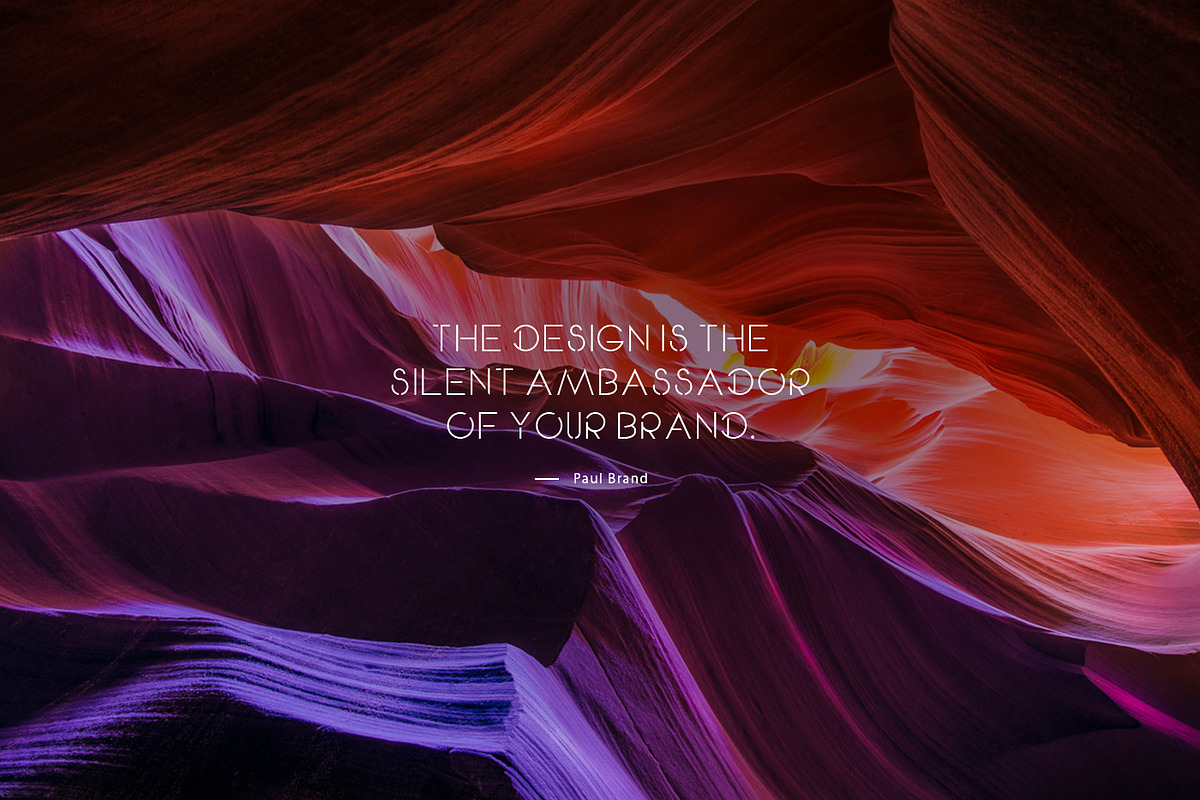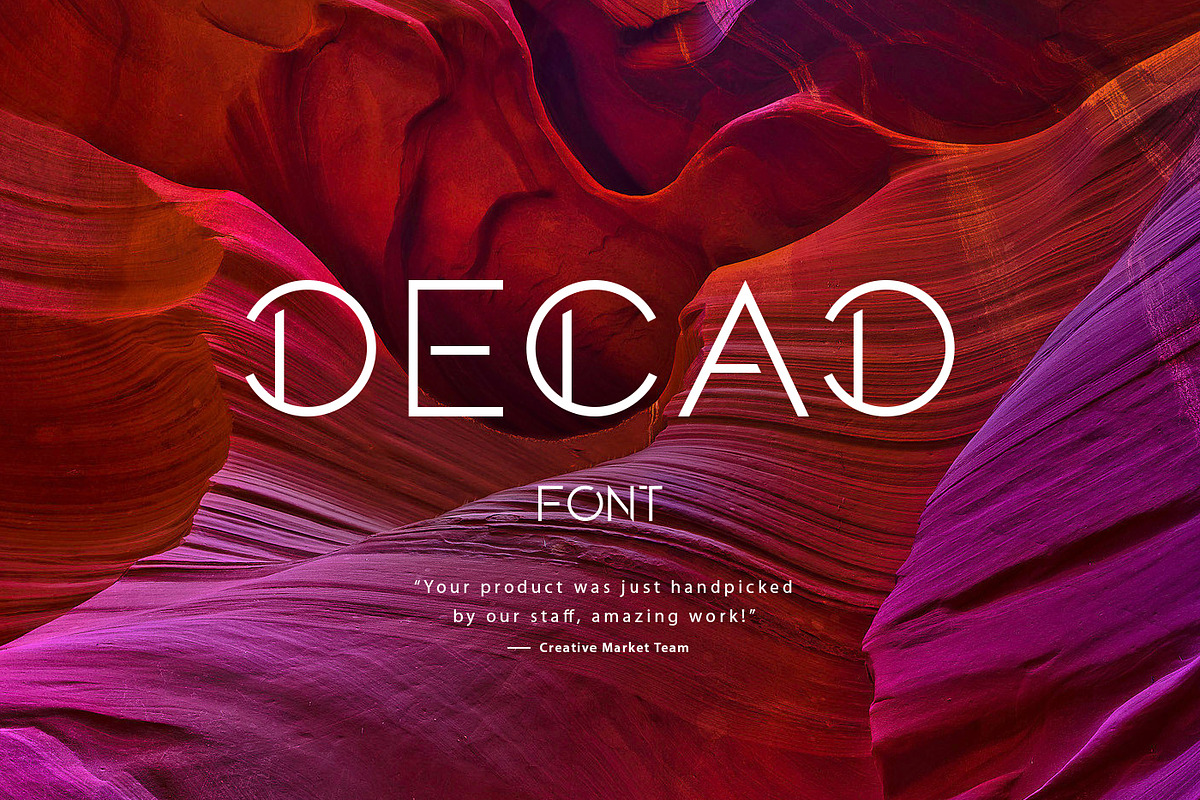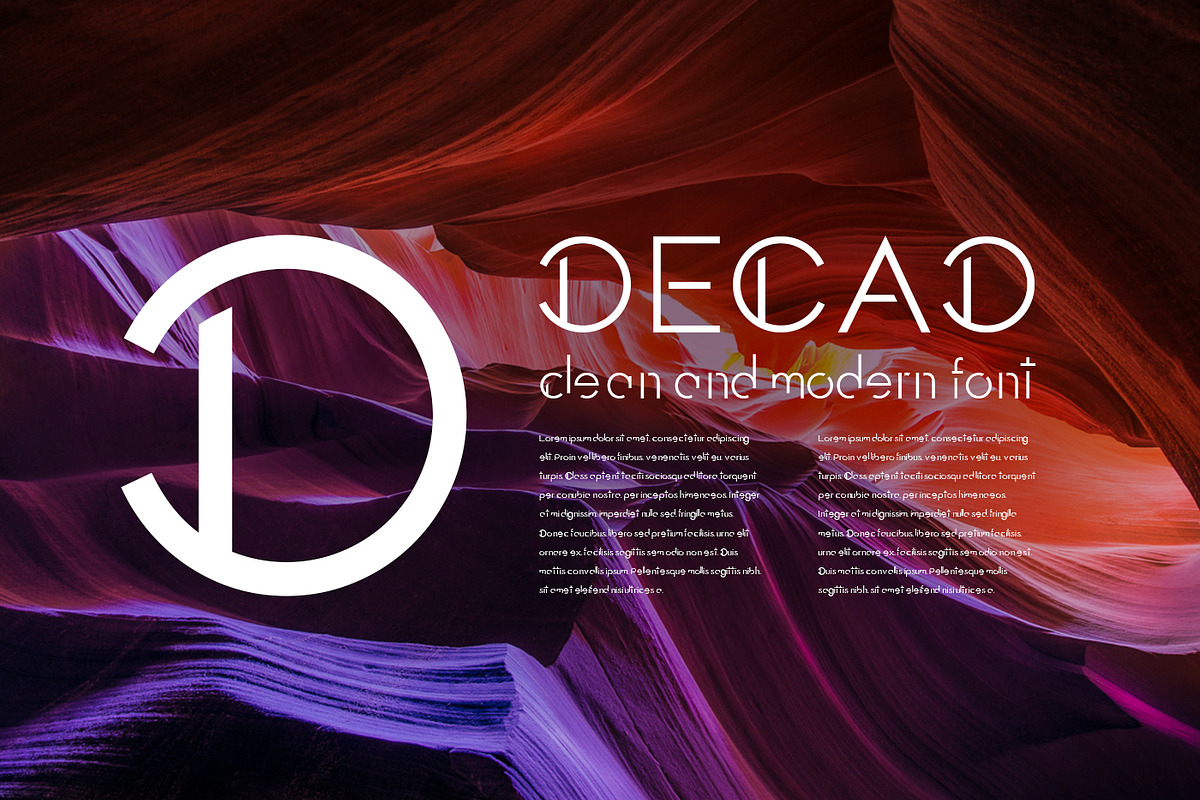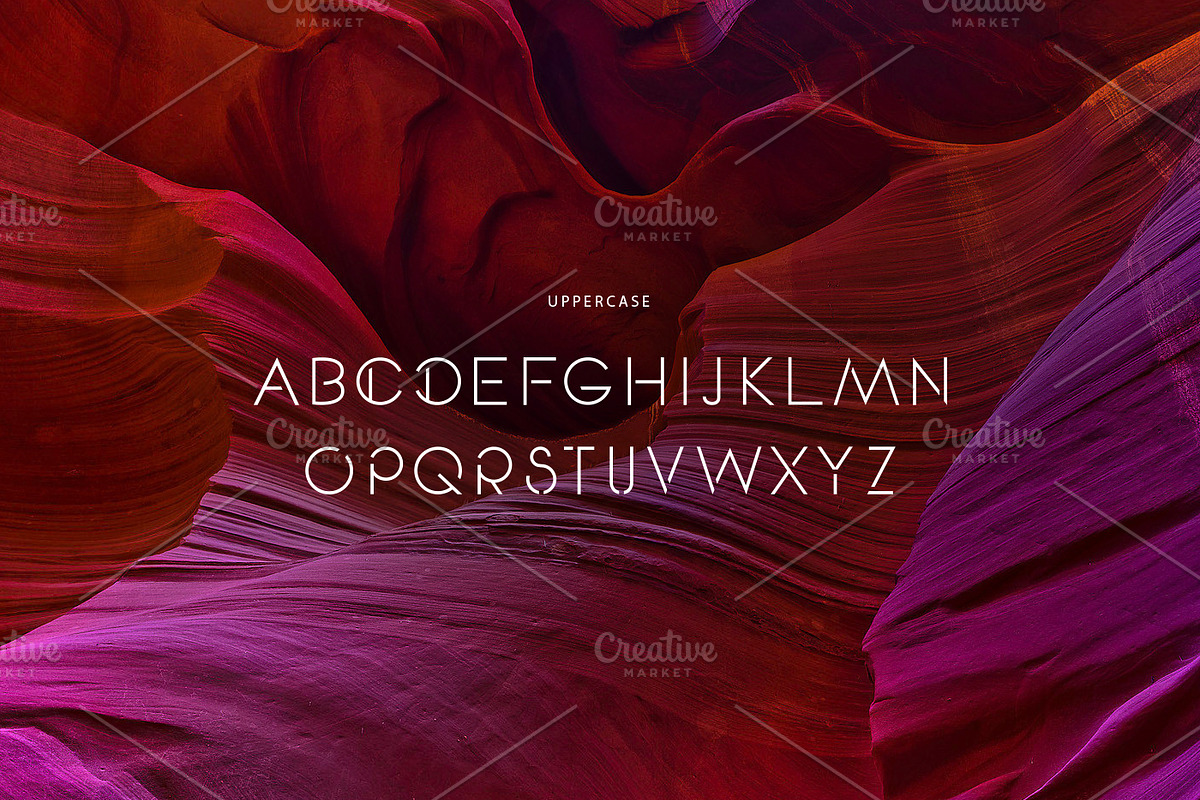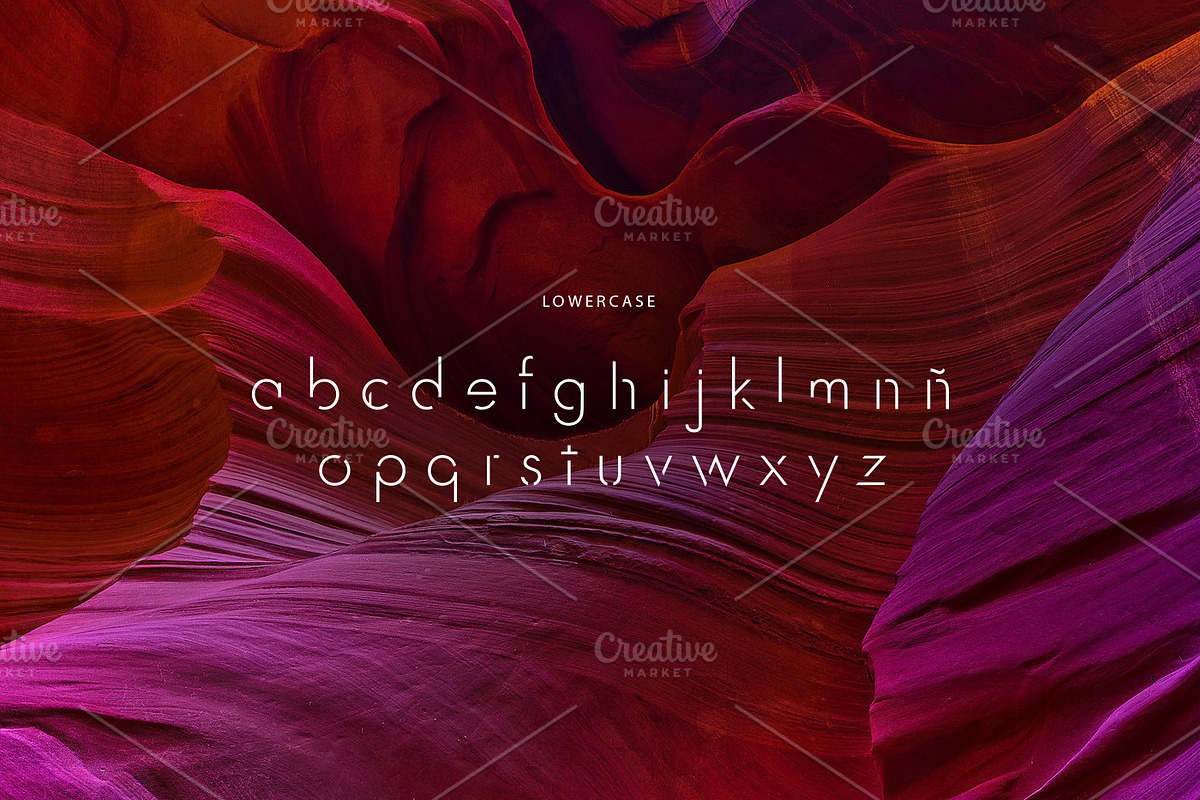
DECAD font
DECAD is clean and modern font, highly useful, and incredibly versatile.
- DECAD ExtraLight
- DECAD Light
- DECAD Regular
- DECAD Semibold
- DECAD Bold
- Character Set A-Z in uppercase and lowercase.